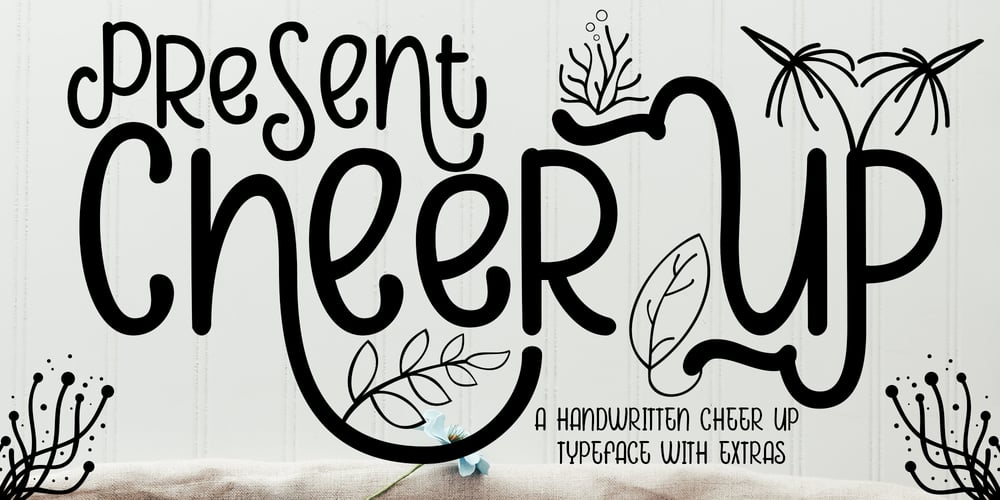
Cheer Up Font Family was designed by Ibram Syah and published by Jehansyah. Cheer Up contains 2 styles and family package options. Cheer up This is a cute and unique handmade font, with a simple appearance and an impression that is comfortable to read and easy to understand, there are several alternatives that you can use and combine, use this design for all purposes clothing, books, titles, magazines, comics, story books, youtube, posters, and other design needsinclude : Cheer up extras numeric punctuation latin Thank you very much